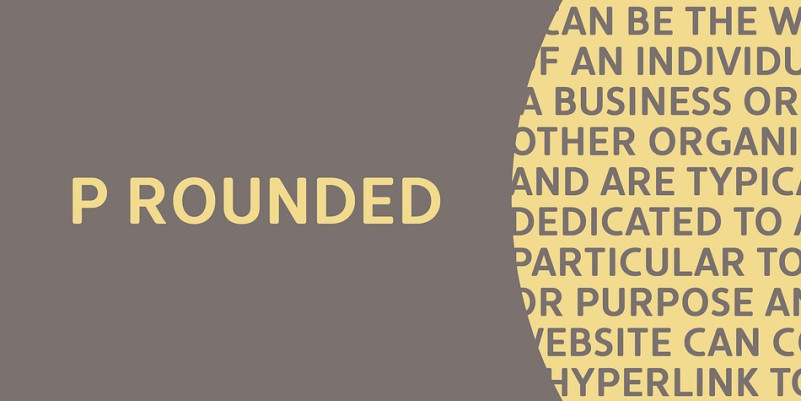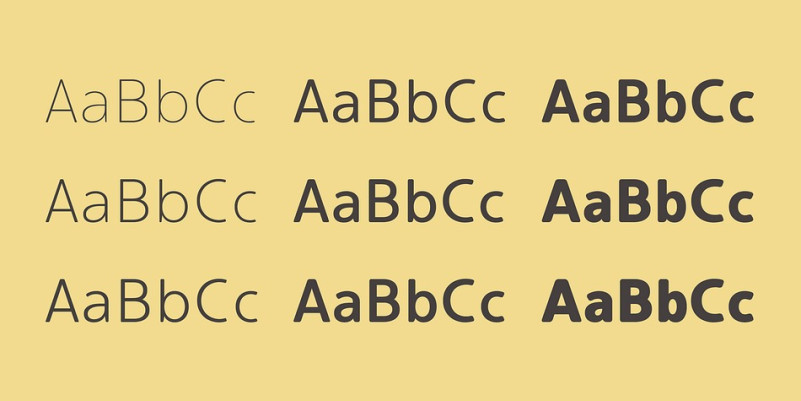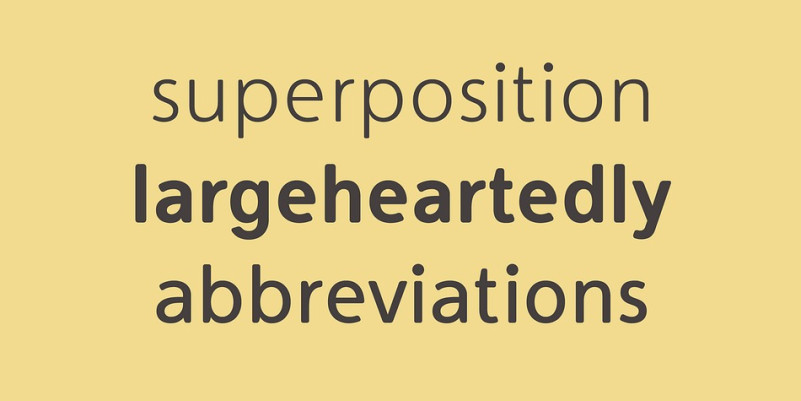
Innovate P Rounded Font Family
Innovate P Rounded Font is a clean and simple vintage sans serif font family, with smooth edges to simulate vintage printing. What differentiates Innovate from the other fonts is its exceptionally distinctive design. It is brilliantly suited for graphic design and display use and perfect for logotypes, t-shirts, packaging, brand identity, books, magazines, newspapers, posters, billboards, and advertising.